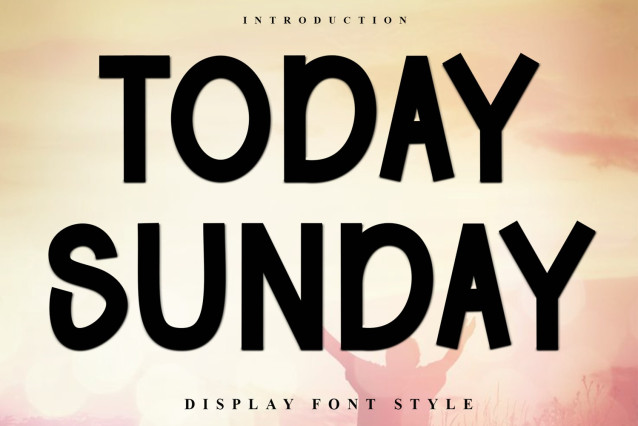
Today Sunday Font
Today Sunday Font is a beautiful and eye-catching font designed with a soft, unique touch. Its distinctive strokes give it a special character, making it meaningful and versatile for future use. With various characters, it’s perfect for design projects, crafts, and other creative works.